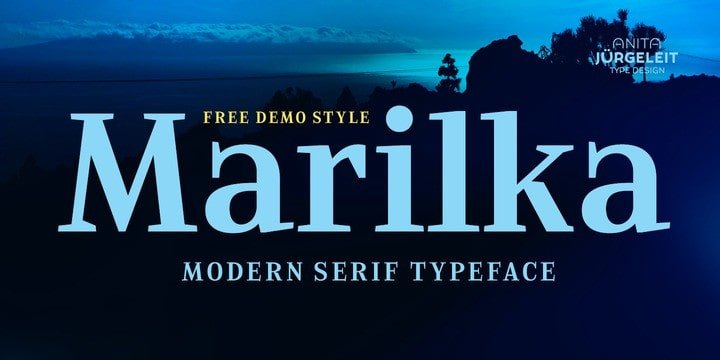
Marilka Serif Font
Marilka Font is a high-contrast serif typeface for a wide range of application. Due the high contrast and warm curves paired with sharp bracketed serifs it works perfect for display purpose.